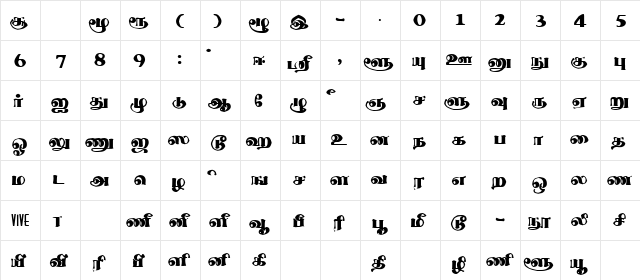
Thevaki Regular
Design Context for Thevaki Typeface
Thevaki is a composed and adaptable typeface that performs quietly and consistently across a wide range of design contexts.